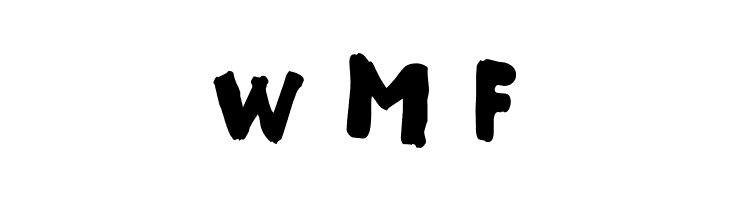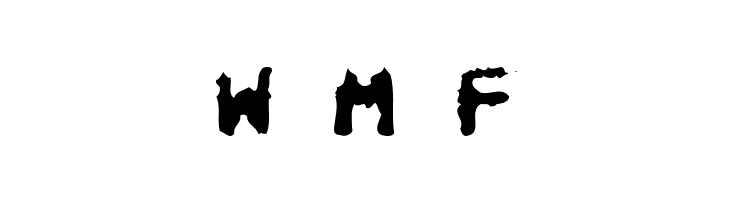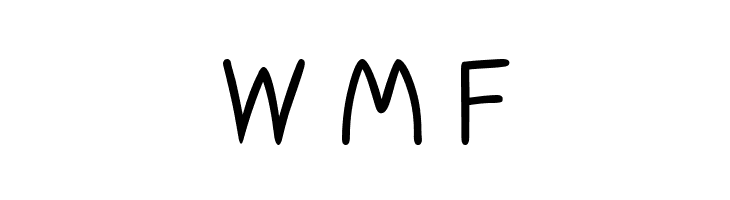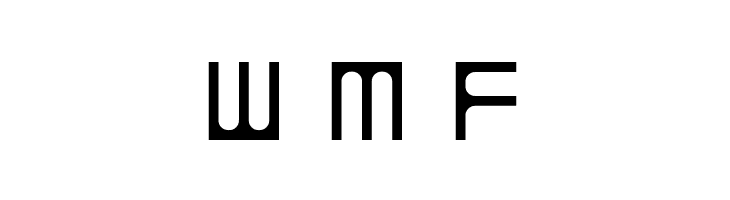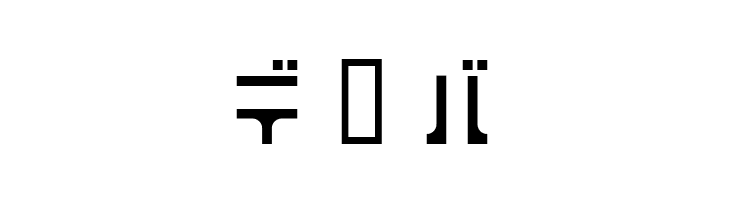
A playful, bold, and quirky hand-drawn font with a whimsical style.
A playful, bold font with rounded, organic shapes and a whimsical style.
A playful, hand-drawn font with a whimsical, cartoonish style.
A playful, bold font with rounded, bubbly characters and a whimsical style.
A bold, dripping font with a playful and creative style.
A playful, rounded handwritten font with smooth curves and a casual style.
A bold, playful font with thick, rounded characters and a bubbly appearance.
A distressed, grungy font with bold, jagged uppercase letters.
A geometric, abstract font with bold, rectangular outlines and a modern aesthetic.
A playful, whimsical font with quirky, hand-drawn letterforms.
A playful, rounded font with smooth curves and consistent stroke width.
A clean, modern monospaced font with uniform character widths and geometric structure.
A playful, devil-themed font with cartoonish, hand-drawn elements.
A spooky, elongated font with a dripping, horror-inspired design.
A distressed, grungy font with a bold, weathered appearance.
A geometric, futuristic font with bold, angular letterforms and minimal contrast.
A bold, geometric font with a modern, digital aesthetic.